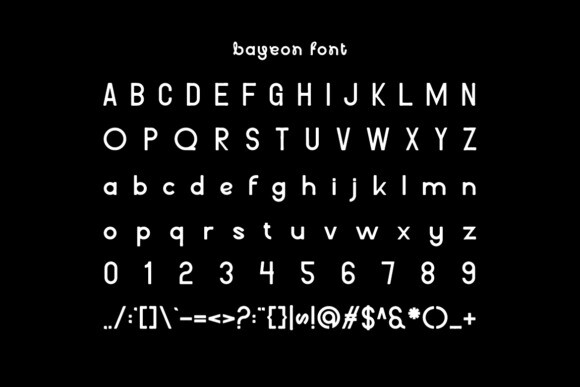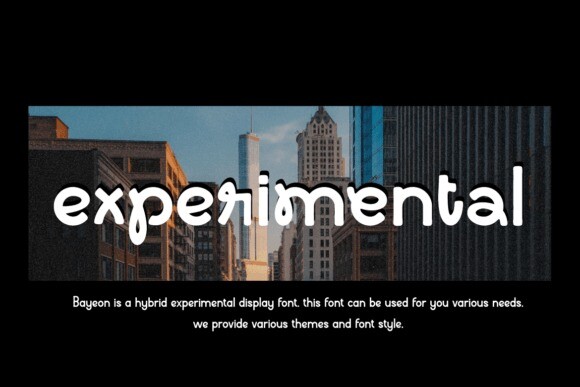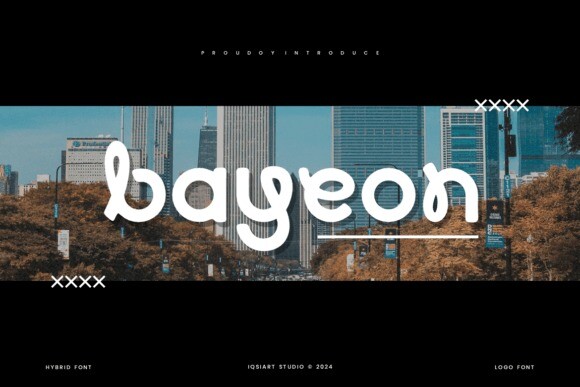
Bayeon Font
Designer: IqsiartStudio
Bayeon Font is a bold script font with thick, flowing letters that connect smoothly, giving it a strong and stylish look. It’s great for making text stand out, adding a personal touch to logos, posters, or invitations. The bold strokes make it easy to read while keeping a fun, handwritten feel.